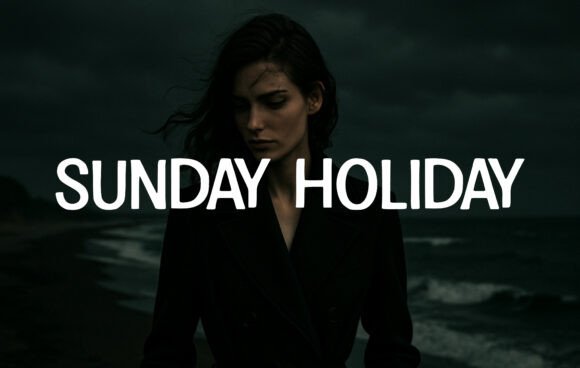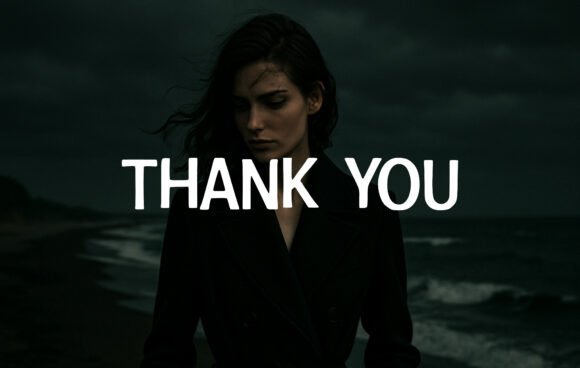
Dickinson Font: A Contemporary Bold Sans-Serif for High-Impact Visual Communication
In the world of typography, fonts play a crucial role in conveying messages, expressing emotions, and creating lasting impressions. For designers and crafters seeking a bold and modern sans-serif font that exudes confidence and approachability, Dickinson Font is an excellent choice. Designed with high-impact visual communication in mind, Dickinson boasts a unique blend of modernity and retro softness, making it perfect for a wide range of applications.
Dickinson Font is characterized by its softly rounded terminals and uniform stroke widths, which give it a clean yet personable look. This contemporary bold sans-serif font features a modern geometric structure, making it ideal for branding, editorial headlines, fashion campaigns, posters, and minimalist designs. The wide letter spacing ensures that the text is easy to read, even at larger font sizes, while the rounded terminals add a touch of warmth and approachability.
- Softly Rounded Terminals: The softly rounded terminals of Dickinson Font give it a unique and distinctive look that sets it apart from other sans-serif fonts.
- Uniform Stroke Widths: The uniform stroke widths ensure that the font has a clean and consistent appearance, making it perfect for use in a variety of applications.
- Wide Letter Spacing: The wide letter spacing makes Dickinson Font easy to read, even at larger font sizes, and ensures that the text is clear and legible.
- Modern Geometric Structure: The modern geometric structure of Dickinson Font gives it a fresh and contemporary look that is perfect for branding, editorial headlines, and fashion campaigns.
Applications
Dickinson Font is a versatile font that can be used in a wide range of applications, including:
- Branding: Dickinson Font is perfect for creating bold and eye-catching brand identities that demand attention.
- Editorial Headlines: The font’s clean and modern appearance makes it ideal for use in editorial headlines, adding a touch of sophistication and elegance to any publication.
- Fashion Campaigns: Dickinson Font’s bold and confident appearance makes it perfect for use in fashion campaigns, where it can help to create a lasting impression.
- Posters: The font’s wide letter spacing and modern geometric structure make it ideal for use in posters, where it can help to grab attention and convey a message.
- Minimalist Designs: Dickinson Font’s clean and simple appearance makes it perfect for use in minimalist designs, where it can help to create a bold and eye-catching visual statement.
Why Choose Dickinson Font?
So why choose Dickinson Font for your next design project? Here are just a few reasons:
- Balanced Style: Dickinson Font strikes the perfect balance between modernity and retro softness, making it ideal for projects that demand attention while retaining elegance.
- Versatility: The font’s versatility makes it perfect for use in a wide range of applications, from branding and editorial headlines to fashion campaigns and posters.
- Clarity: Dickinson Font delivers clarity with character, making it perfect for use in designs where the message needs to be clear and concise.
In conclusion, Dickinson Font is a contemporary bold sans-serif font that is perfect for designers and crafters seeking a modern and confident font for their next design project. With its softly rounded terminals, uniform stroke widths, and wide letter spacing, Dickinson Font is ideal for use in a wide range of applications, from branding and editorial headlines to fashion campaigns and posters. Whether you’re looking to create a bold and eye-catching visual statement or simply want to add a touch of elegance to your design, Dickinson Font is an excellent choice.
So why not give Dickinson Font a try? With its balanced style, versatility, and clarity, it’s the perfect font for any design project that demands attention while retaining elegance.